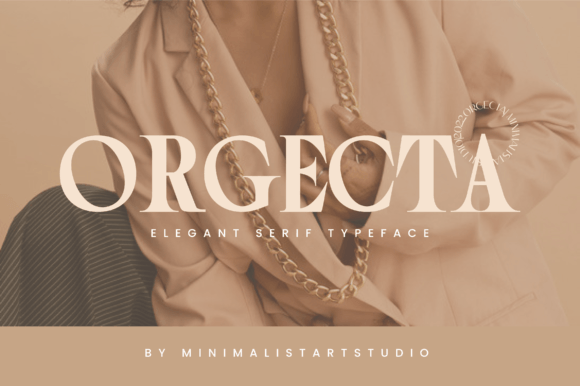
Journey into the realm of typography with Orgecta, a serif font that exudes elegance, luxury, and sophistication. Its intricate details and captivating contrast between sharp exteriors and smooth interiors create a visually striking impact that will leave your designs radiating with opulence.
Orgecta's versatility knows no bounds, making it the perfect choice for a wide range of design projects. From luxurious packaging designs that evoke a sense of exclusivity to captivating jewelry and fashion house branding, Orgecta adds a touch of sophistication that elevates your creations to new heights.
Unleash your creativity with Orgecta, and let your designs shine with an aura of elegance. Its timeless beauty will add a touch of luxury to romantic film titles, making your audience feel like they're stepping into a cinematic masterpiece.
Step into the world of Orgecta, where every letter is a work of art, and every design tells a story of elegance and refinement. Experience the beauty of typography with Orgecta, and let your designs leave a lasting impression of luxury and sophistication.